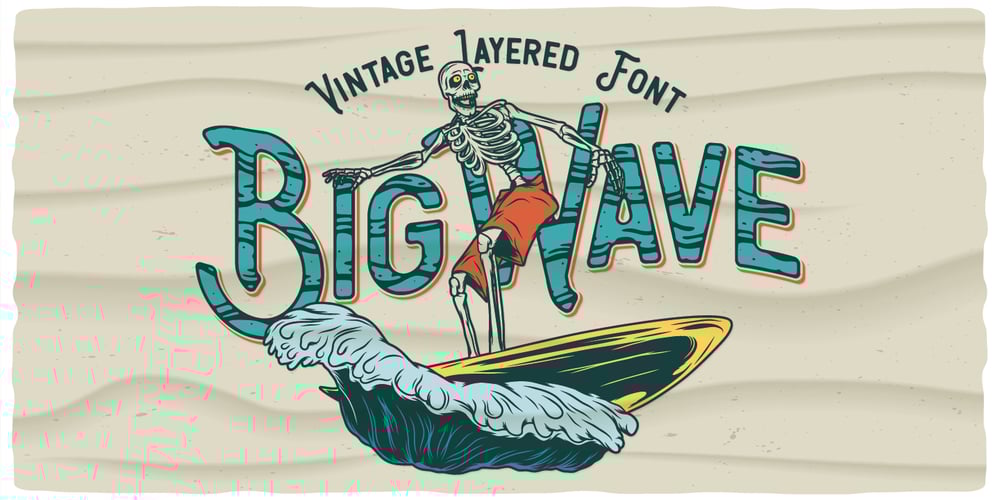
Big Wave Font Family was designed by Oleg Voznyy and published by Vozzy. Big Wave contains 7 styles and family package options. Introducing a vintage look label font named Big Wave. This font have a lot of additional characters and multilingual support (you can see them at the screenshot) and including 7 styles – Regular, Full, Shadow, Texture, Shadow FX, Texture FX and Outline. This font will good viewed on any retro design like poster, t-shirt, label, logo etc.